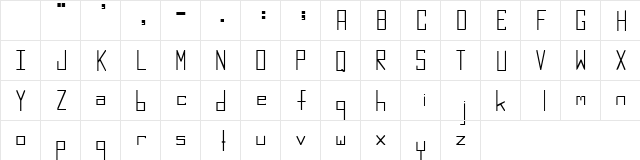
Complete Boring Squared Thin glyph index. Displaying only characters natively supported by Boring Squared Thin font.
Boring Squared is a composed and adaptable typeface that performs quietly and consistently across a wide range of design contexts. Its slender proportions lend an understated elegance to any composition.